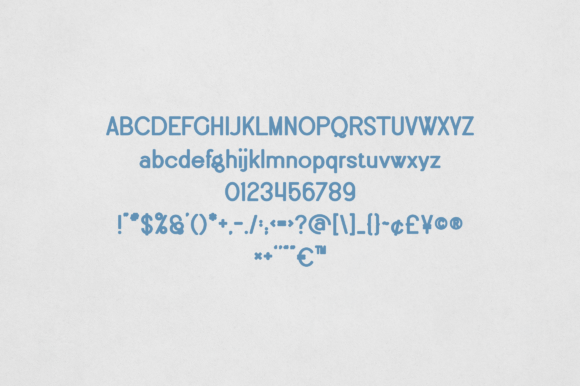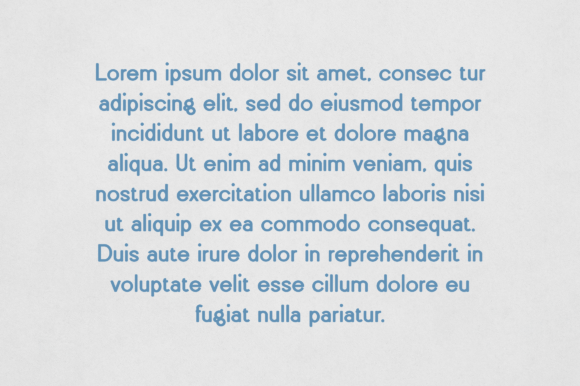
Introducing Harlow Font: Elevate Your Typography with Elegance and Versatility
Are you tired of using the same old fonts for your design projects? Look no further than Harlow Font, a stunning and versatile typeface that will take your typography to the next level. With its elegant and refined aesthetic, Harlow Font is perfect for designers and crafters looking to add a touch of sophistication to their work.
What Makes Harlow Font So Special?
Harlow Font is an elegant and versatile font that will make your typography truly unique. Its refined and sophisticated aesthetic makes it perfect for a wide range of design projects, from logos and branding to headlines and plain text. Whether you’re working on a branding project, home-ware design, product packaging, or magazine header, Harlow Font is sure to enchant every element of your design.
Harlow Font’s versatility is one of its standout features. This font is perfect for:
- Branding projects: Create a lasting impression with Harlow Font’s elegant and sophisticated aesthetic.
- Home-ware designs: Add a touch of refinement to your home-ware designs with Harlow Font’s classic and timeless look.
- Product packaging: Make your product stand out on store shelves with Harlow Font’s unique and eye-catching style.
- Magazine headers: Create stunning magazine headers that will grab readers’ attention with Harlow Font’s bold and elegant aesthetic.
- Text overlays: Use Harlow Font as a stylish text overlay to add a touch of sophistication to any background image.
Why Choose Harlow Font?
There are many reasons why Harlow Font stands out from the crowd. Here are just a few:
- Elegant and refined aesthetic: Harlow Font’s sophisticated look is sure to elevate your typography and add a touch of class to your designs.
- Versatile: Harlow Font can be used for a wide range of design projects, from logos and branding to headlines and plain text.
- Unique: Harlow Font’s unique style will help your designs stand out from the crowd and leave a lasting impression on your audience.
How to Use Harlow Font in Your Designs
Using Harlow Font in your designs is easy. Here are a few tips to get you started:
- Pair it with other fonts: Experiment with pairing Harlow Font with other fonts to create a unique and eye-catching look.
- Use it as a headline font: Harlow Font’s bold and elegant aesthetic makes it perfect for use as a headline font.
- Use it for body text: Harlow Font’s refined and sophisticated aesthetic also makes it suitable for use as a body text font.
- Experiment with different colors: Try using Harlow Font in different colors to add an extra touch of elegance and sophistication to your designs.
In conclusion, Harlow Font is a stunning and versatile typeface that is perfect for designers and crafters looking to elevate their typography. With its elegant and refined aesthetic, Harlow Font is sure to enchant every element of your design, from logos and branding to headlines and plain text. Whether you’re working on a branding project, home-ware design, product packaging, or magazine header, Harlow Font is the perfect choice.
Get Ready to Elevate Your Typography with Harlow Font